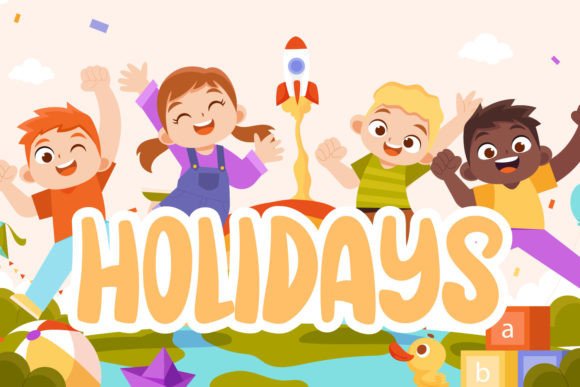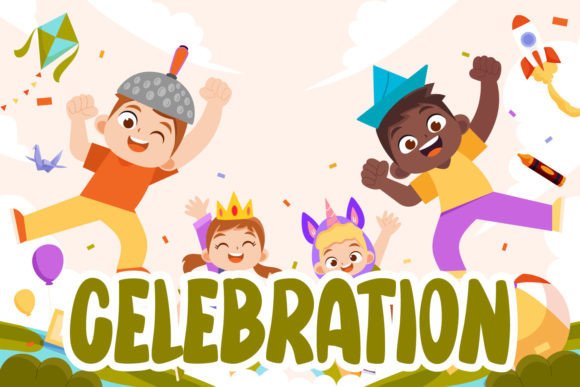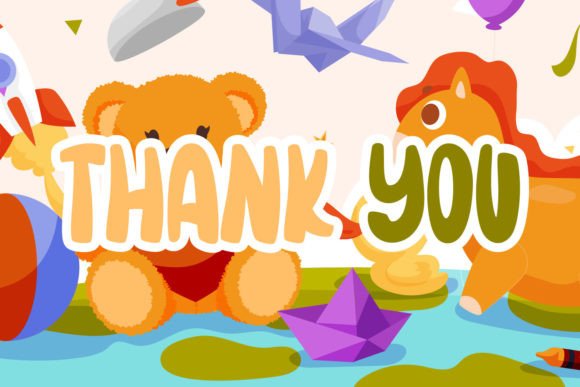
The Joy of Children Font: A Designer’s New Best Friend
I still remember the time I was working on a project for a children’s birthday party invitation. I had the design concept all sorted out, but I was stuck on finding the perfect font. The invitation needed to be fun, playful, and appealing to kids. That’s when I stumbled upon the Children font. It was love at first sight! ✨
An Honest Review of Children Font
- ✨ The font is incredibly cute and colorful, making it perfect for children-themed designs.
- ✅ The display font is highly legible, even at smaller sizes.
- 🌈 It comes with a range of bright and pastel colors that can add a pop of fun to any design.
- 🎉 The font has a youthful and energetic vibe that’s sure to appeal to kids and adults alike.
While I absolutely adore the Children font, there are a few minor quirks to be aware of: 🤔
- ⚠️ The font may not be suitable for body text or longer paragraphs, as it’s primarily designed for display purposes.
- ⚠️ Some characters may not have perfect kerning, which can affect the overall appearance of the text.
The Backstory Behind Children Font
The Children font was designed by a talented type designer who’s passionate about creating fun and playful fonts for creatives. The designer wanted to create a font that would bring joy and excitement to children’s designs, and the Children font was born. With its bright colors and youthful vibe, it’s no wonder this font has become a favorite among designers and crafters.
Q: What type of designs is Children font best suited for?
A: Children font is perfect for children-themed designs, such as party invitations, kids’ books, posters, and flyers.